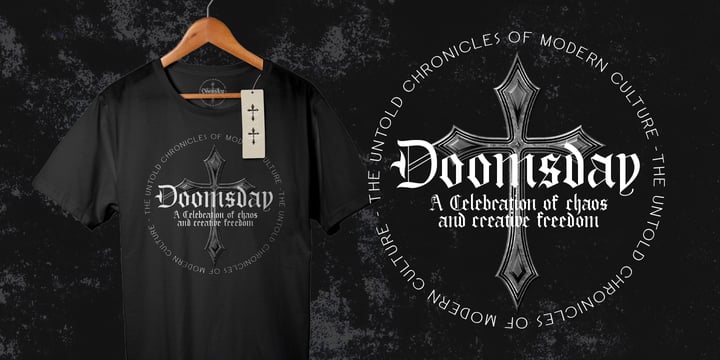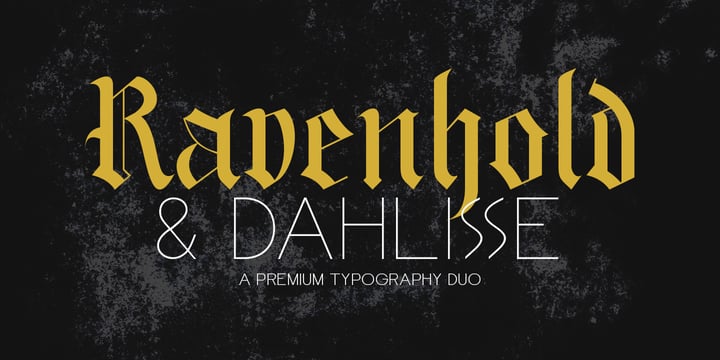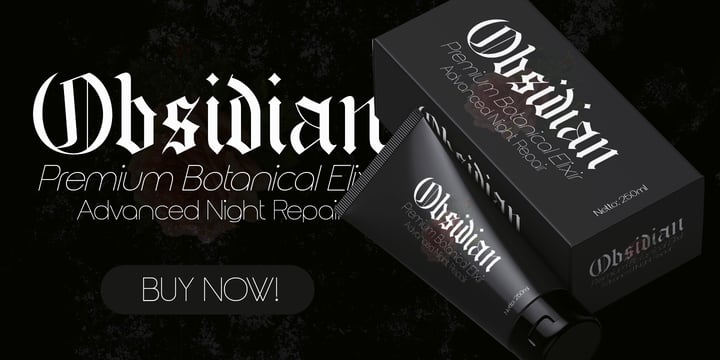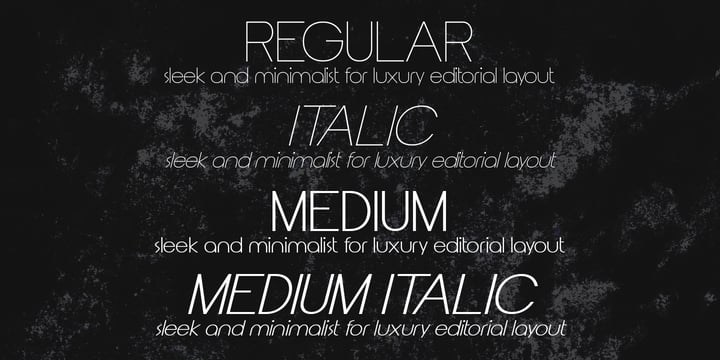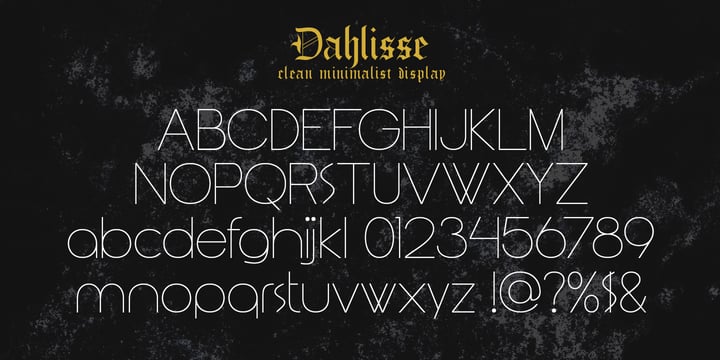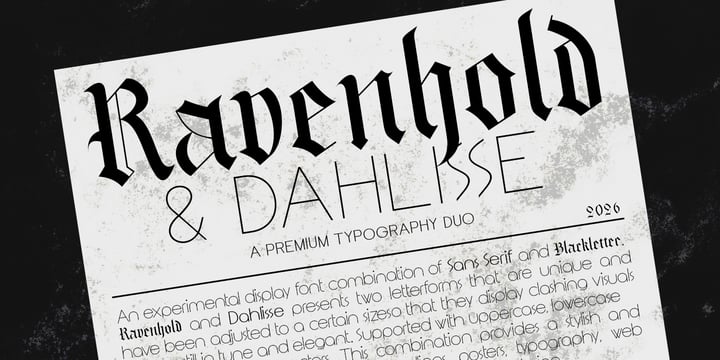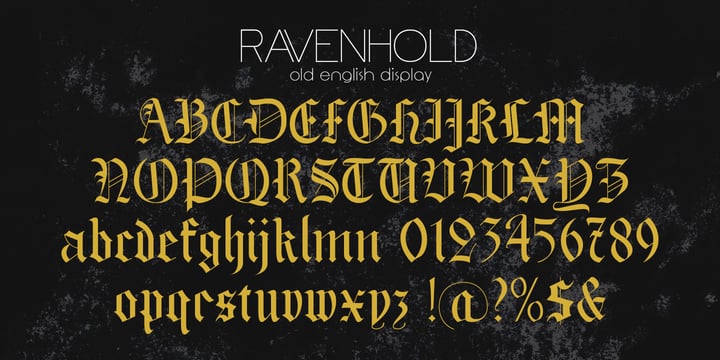
Font Duo
Ravenhold & Dahlisse – A Premium Typography Duo
Introduce a captivating contrast to your design projects with Ravenhold & Dahlisse, a masterfully paired typography duo that balances dark, historic strength with modern, airy elegance.
Ravenhold is a bold, modern Blackletter font infused with sharp, contemporary angles and classic medieval characteristics. It commands attention and brings a powerful, edgy, and premium vintage aesthetic to any headline, branding, or merchandise design.
Dahlisse is an ultra-light, sophisticated sans-serif font featuring clean lines and tall, elegant proportions. It serves as the perfect minimalist companion, offering high legibility and a sleek modern touch that perfectly balances the dramatic weight of Ravenhold.
This dynamic duo is meticulously crafted for designers looking to create high-impact branding, luxury packaging, editorial layouts, vintage logos, gothic-themed apparel, posters, and book covers. Elevate your typography game with a duo that seamlessly blends the ancient and the modern.